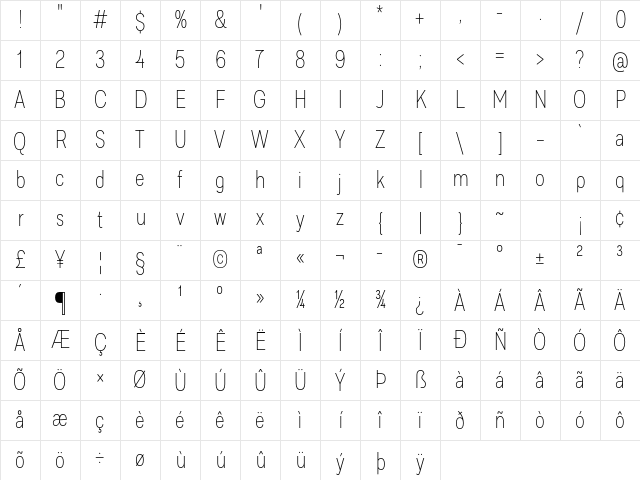
Complete TA Fabricans Cond ExtLt Regular glyph index. Displaying only characters natively supported by TA Fabricans Cond ExtLt Regular font.
TA Fabricans Cond ExtLt is a composed and adaptable typeface that performs quietly and consistently across a wide range of design contexts. Its narrow stance lets it pack a punch even in space-constrained designs.